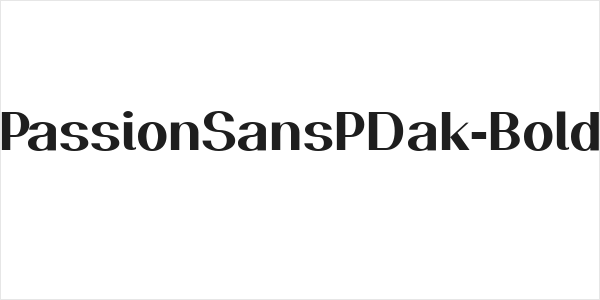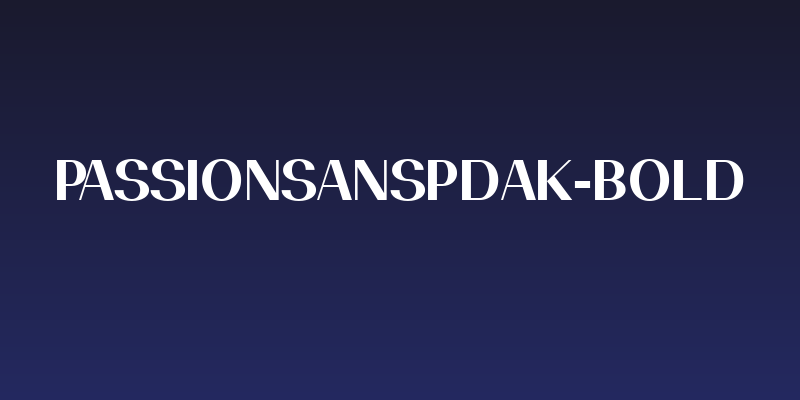
PassionSansPDak-Bold Font
PassionSansPDak-Bold Description
This font showcases a bold and modern aesthetic with clean, sharp lines and a strong presence. The uppercase letters are particularly striking, featuring a mix of straight and slightly curved edges that create a dynamic and engaging look. The lowercase letters maintain a consistent style, offering a harmonious blend with the uppercase set. Numbers are robust and clear, ensuring readability. Special characters are well-defined, adding versatility to the font's use. The overall design is sleek and contemporary, making it suitable for a variety of applications.
| Use Case | Headlines, Logos, Advertising |
| Proposed Projects | Ideal for branding, advertising, headlines, and digital media projects. |